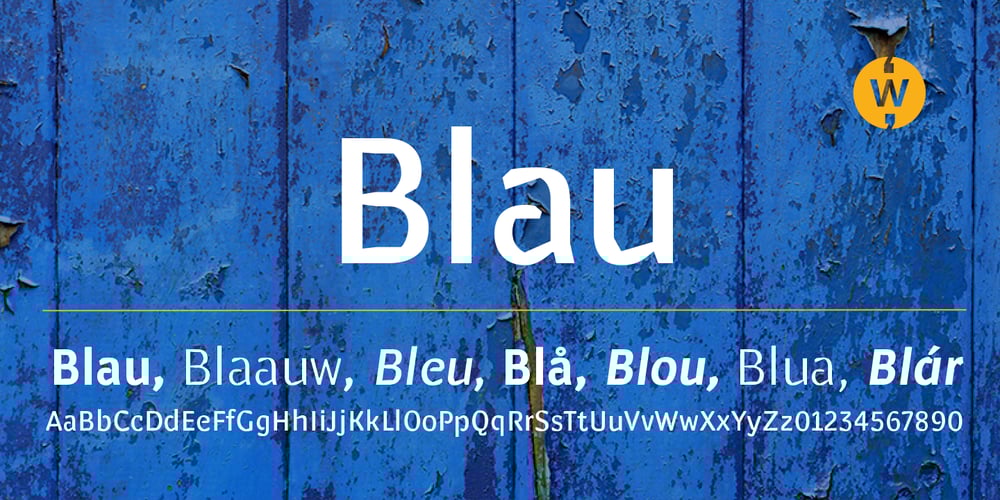
Blau Font Family was designed by Robbie de Villiers and published by Wilton Foundry. Blau contains 6 styles and family package options. Designed with a hand-chiseled feel, Blau’s sculpted characters add a refined personality to a wide range of brand, corporate, product and service applications. Highlighting the sculpted theme, inkwell treatment variations are prevalent throughout Blau, with several key glyphs that are stenciled for increased legibility. This sturdy, typographic workhorse shines when a slightly unorthodox typographic approach is required — a prime choice for distinctive and dynamic logotype use. The Blau family is available in Light, Light Italic, Regular, Italic, Bold and Bold Italic. The name Blau was chosen to celebrate the color Blue (or Blau in German, Blaauw in Dutch, Bleu French, Blå in Norwegian, Swedish & Danish, Blua in Esperanto, Blár in Icelandic) Blue is nature’s color for water, sky, mountains and glaciers. Blue is embraced as the color of heaven and authority, denim jeans and corporate logos. Surveys in the US and Europe show that blue is the color most commonly associated with harmony, faithfulness, confidence, distance, infinity, the imagination, and cold. In US and European public opinion polls, it is the most popular color, chosen by both men and women as their favorite color. Another very popular Wilton Foundry font in the “blue” family is “Cyan” and “Cyan Neue”.